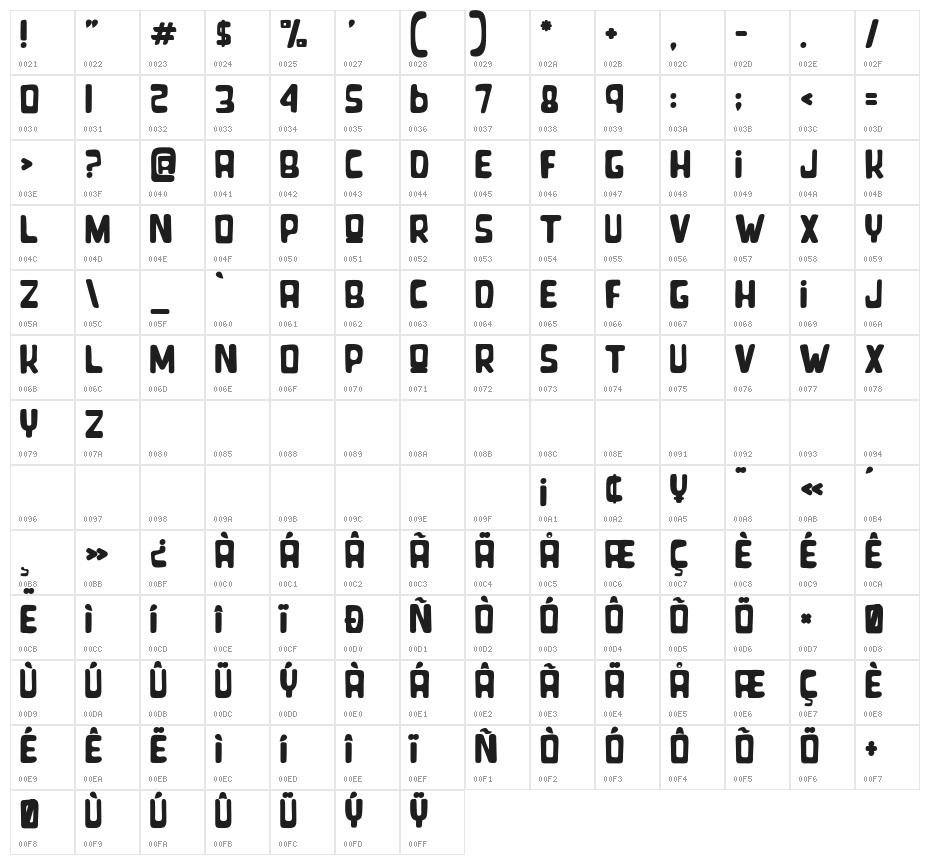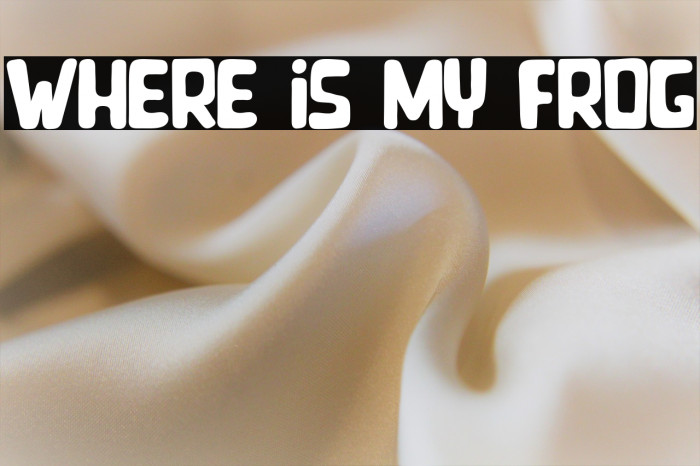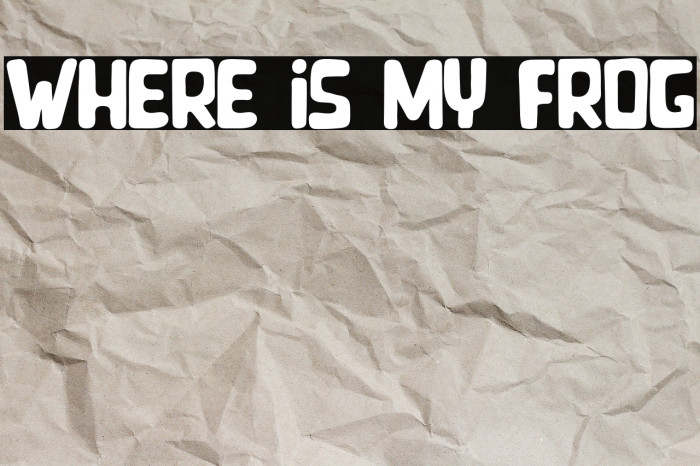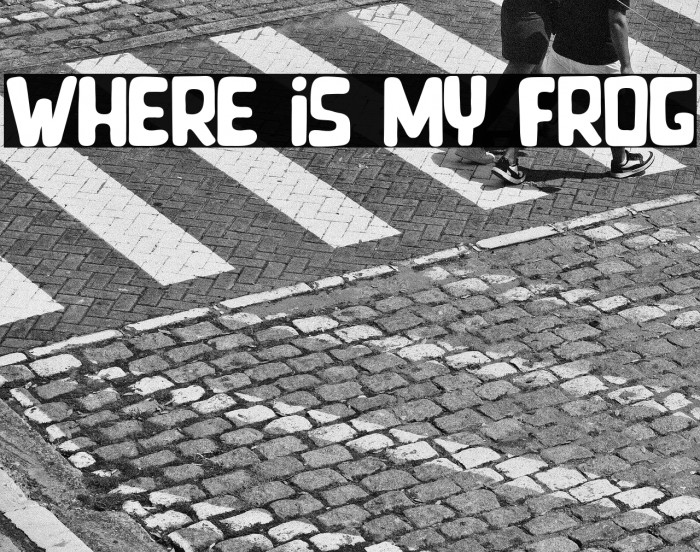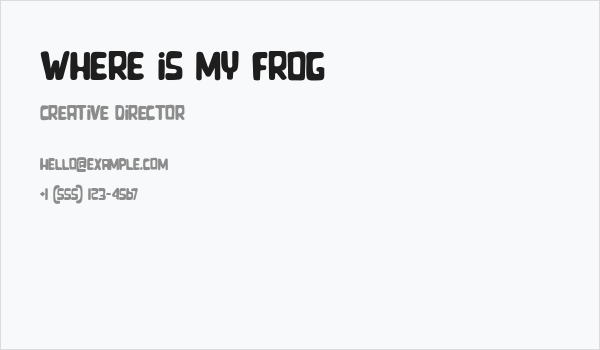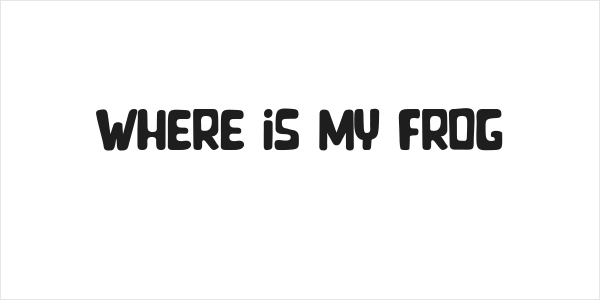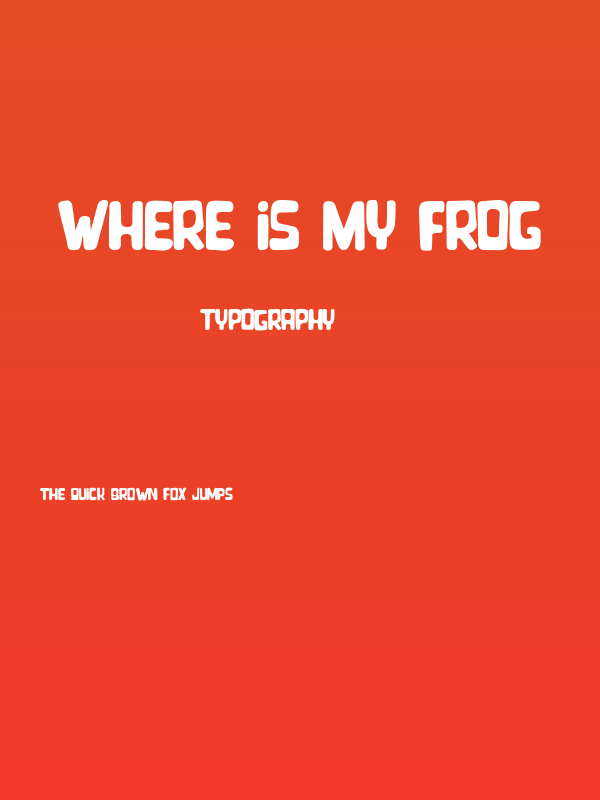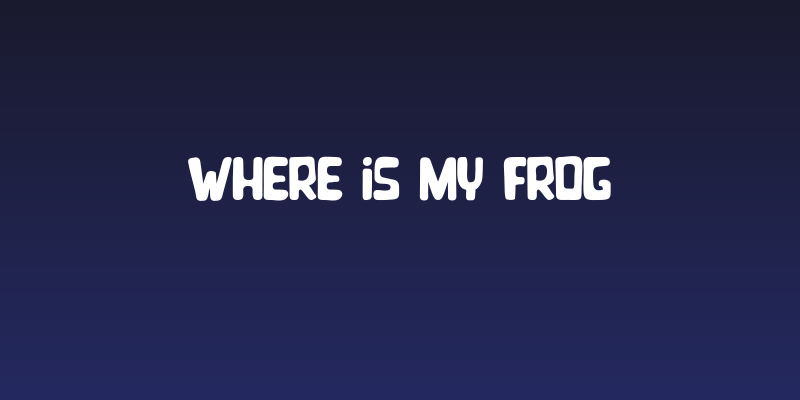
Where is my Frog Font
Where is my Frog Description
This font features a playful and bold design with rounded edges and a slightly irregular form, giving it a whimsical and friendly appearance. The characters are thick and robust, with a consistent stroke width that maintains a uniform look across both uppercase and lowercase letters. The numbers and special characters follow the same style, ensuring a cohesive visual identity. The overall design is approachable and fun, making it suitable for projects that require a touch of personality and warmth.
| Proposed Projects | Ideal for children's books, playful branding, posters, and creative projects that require a friendly and approachable typeface. |